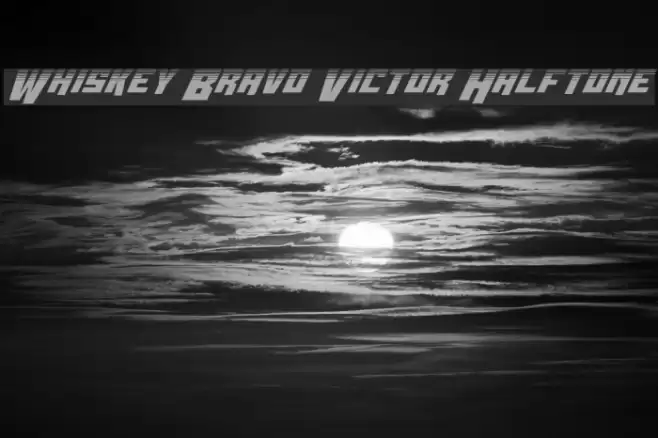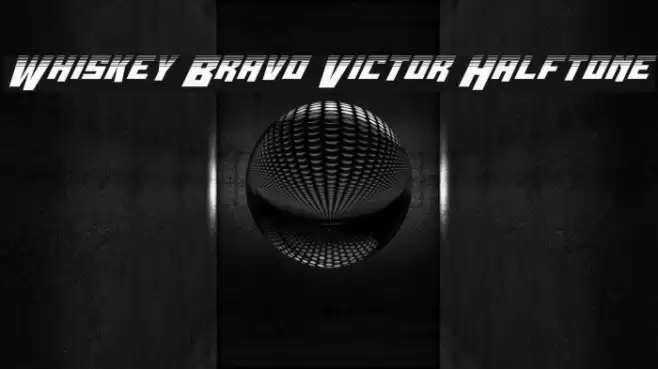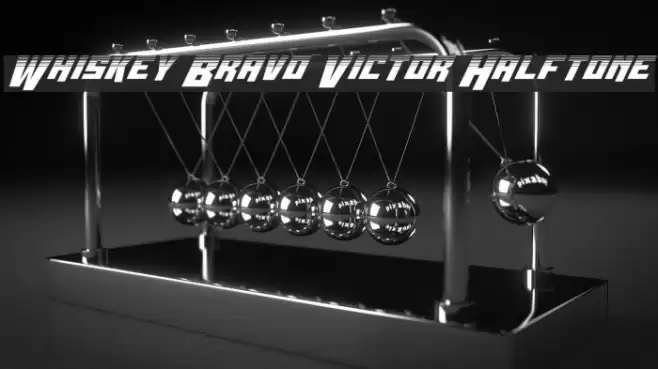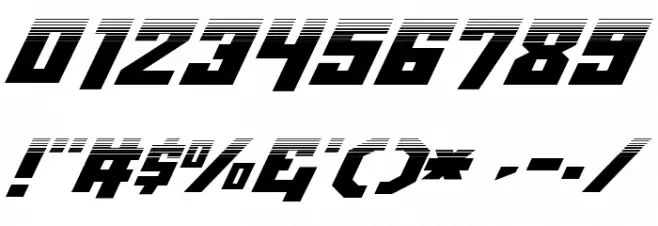
Whiskey Bravo Victor Halftone Font
Whiskey Bravo Victor Halftone Description
This font features a bold, dynamic style with a halftone effect that gives it a sense of motion and energy. The characters are angular and geometric, with a strong emphasis on horizontal lines that create a sense of speed and modernity. The uppercase and lowercase letters maintain a consistent style, with the halftone effect applied uniformly across all characters. The numbers and special characters are designed to match the bold, impactful aesthetic of the letters, making this font suitable for attention-grabbing designs. The overall appearance is both futuristic and retro, reminiscent of digital displays or racing graphics.
A bold, dynamic font with a halftone effect, ideal for energetic and modern designs from Uncategorized fonts.
- Proposed Projects: This font is perfect for projects that require a strong visual impact, such as sports branding, video game titles, posters, and advertising campaigns.